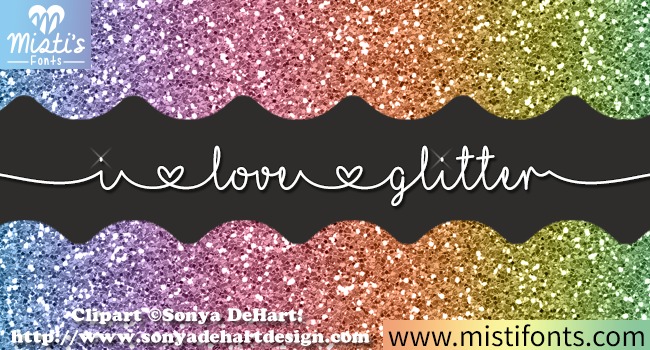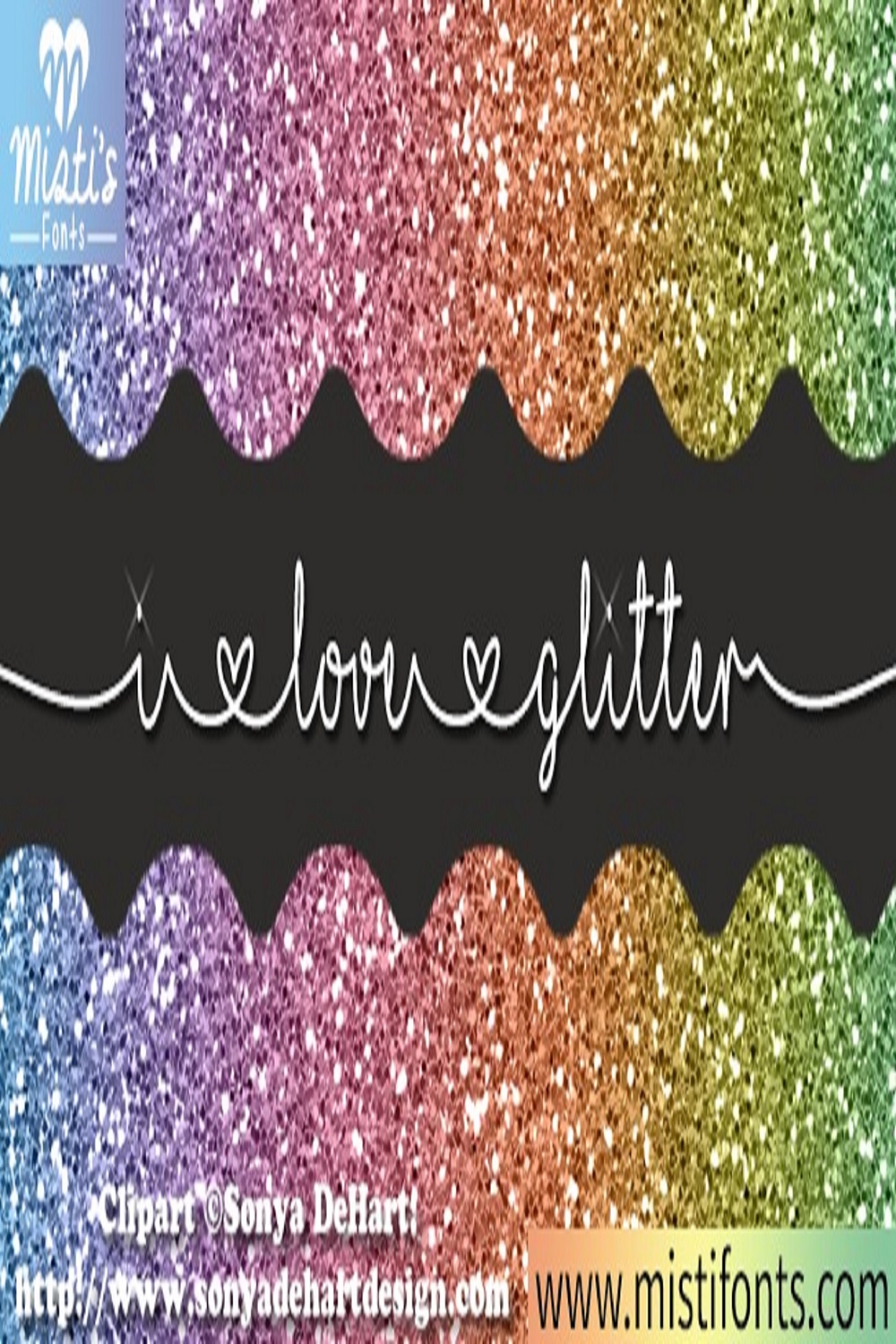
Introducing the MF ‘I Love Glitter’ font, your new secret weapon for standout crafting projects. This unique, eye-catching font is perfect for adding a touch of sparkle and creativity to any design.
Whether you’re crafting beautiful invitations, designing custom t-shirts, or creating stunning scrapbook pages, ‘I Love Glitter’ is the font you’ve been searching for. Its whimsical lettering style is not only visually appealing but also highly versatile, making it suitable for a wide range of projects.